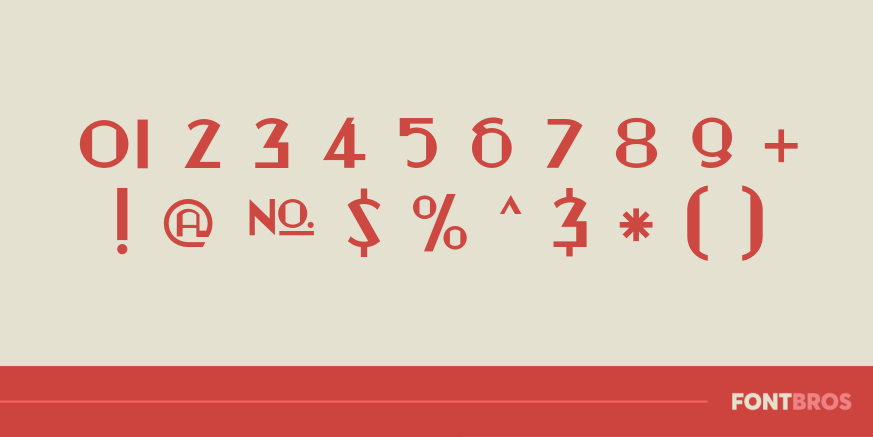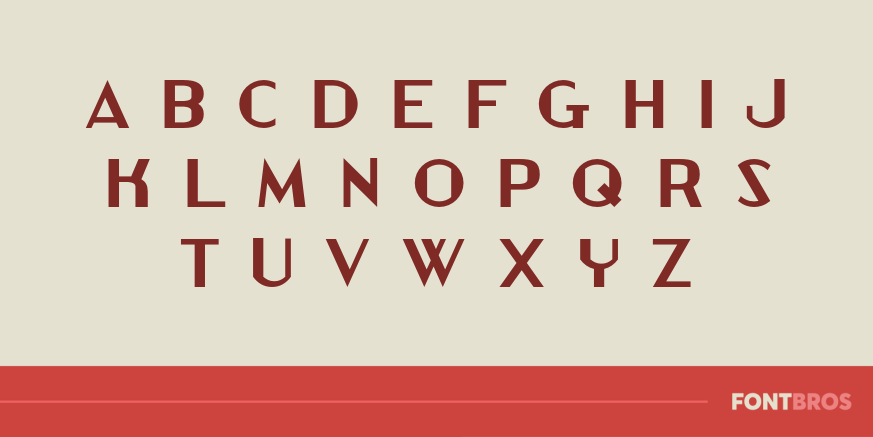
Automatic
Font Family by Font Diner
Grab a nickel and head to the Horn & Hardart Automat for a delightful cafeteria-style meal and enjoy modern living surrounded in this 1930s Art Deco style sans-serif!